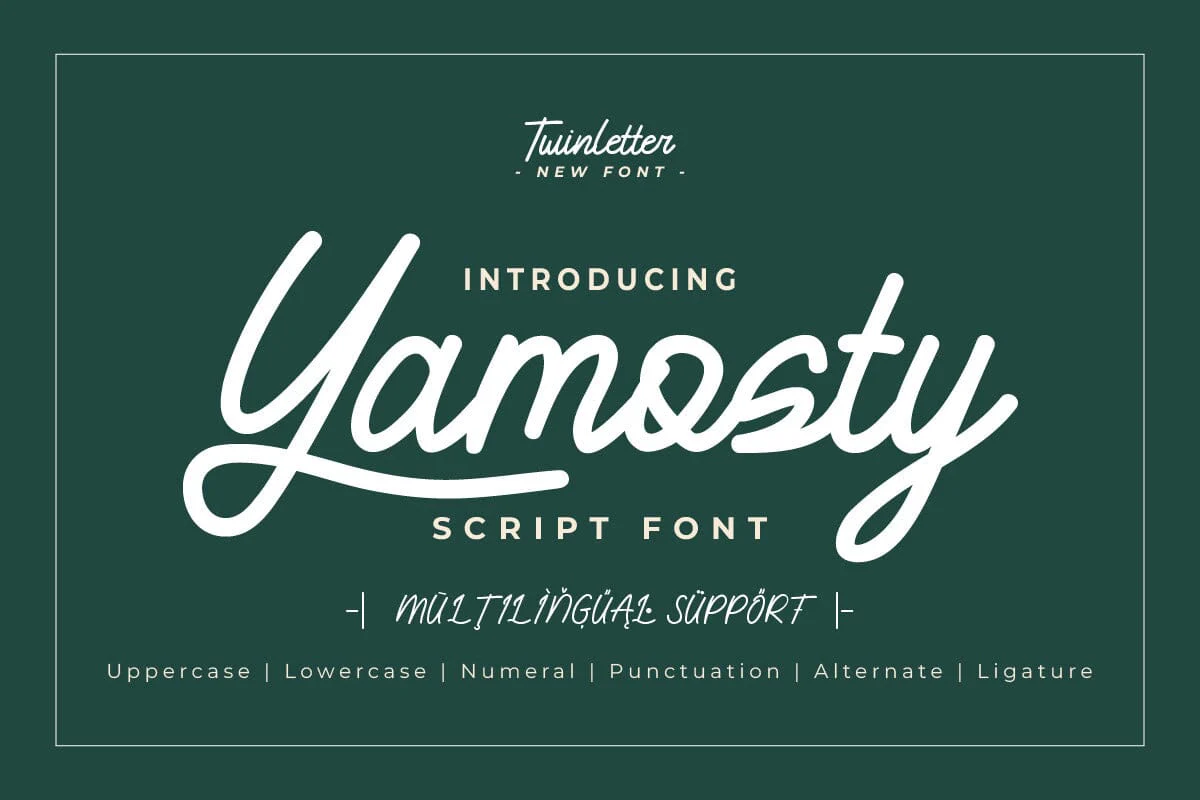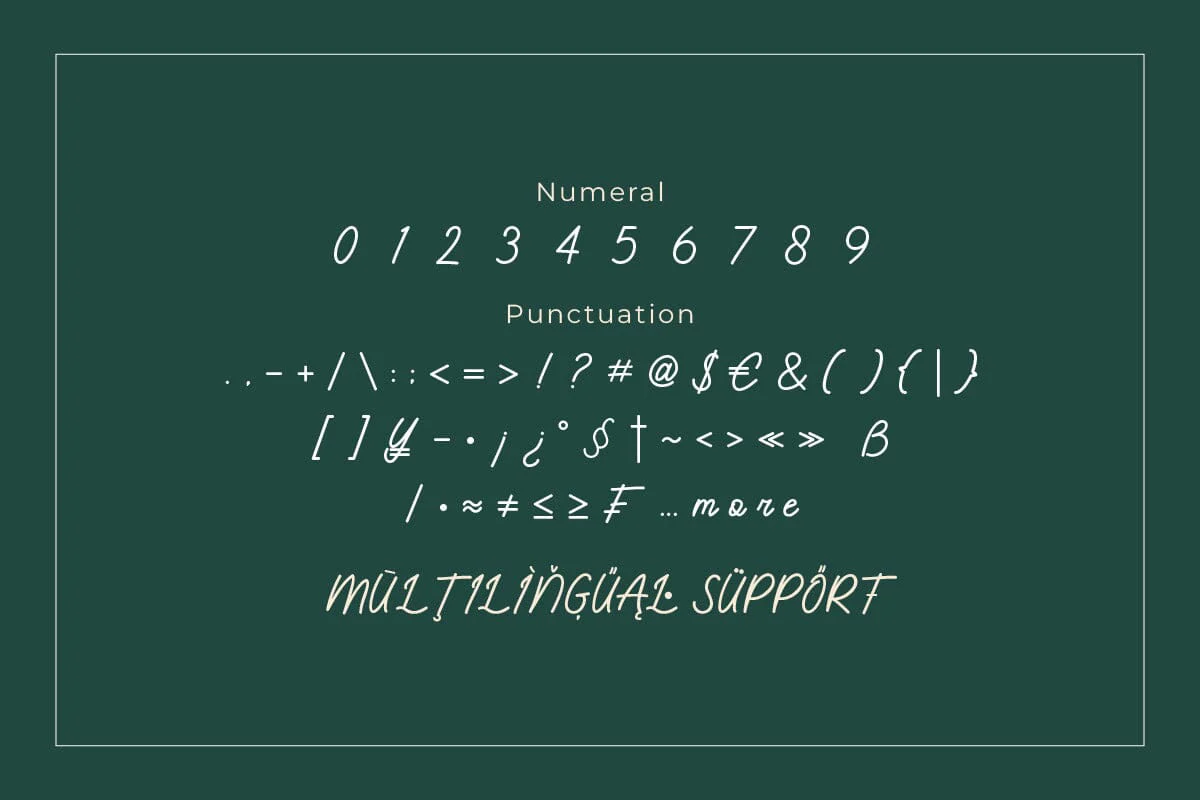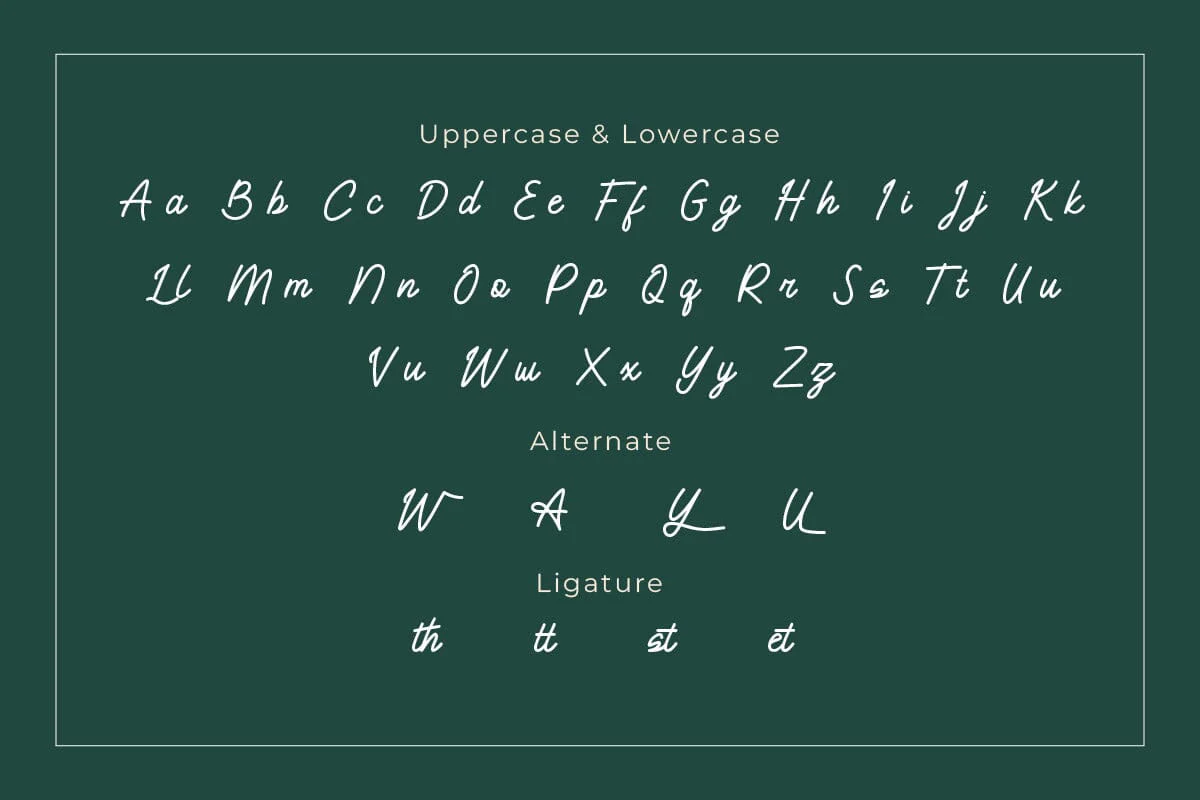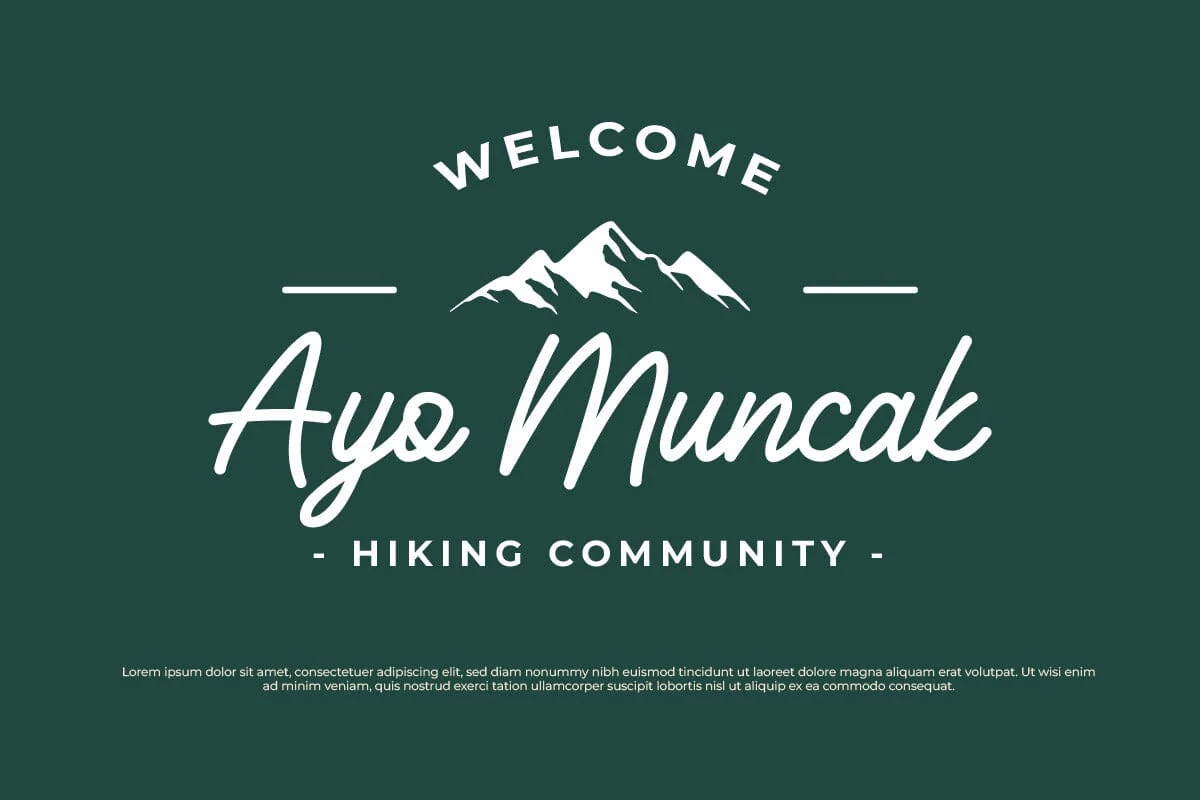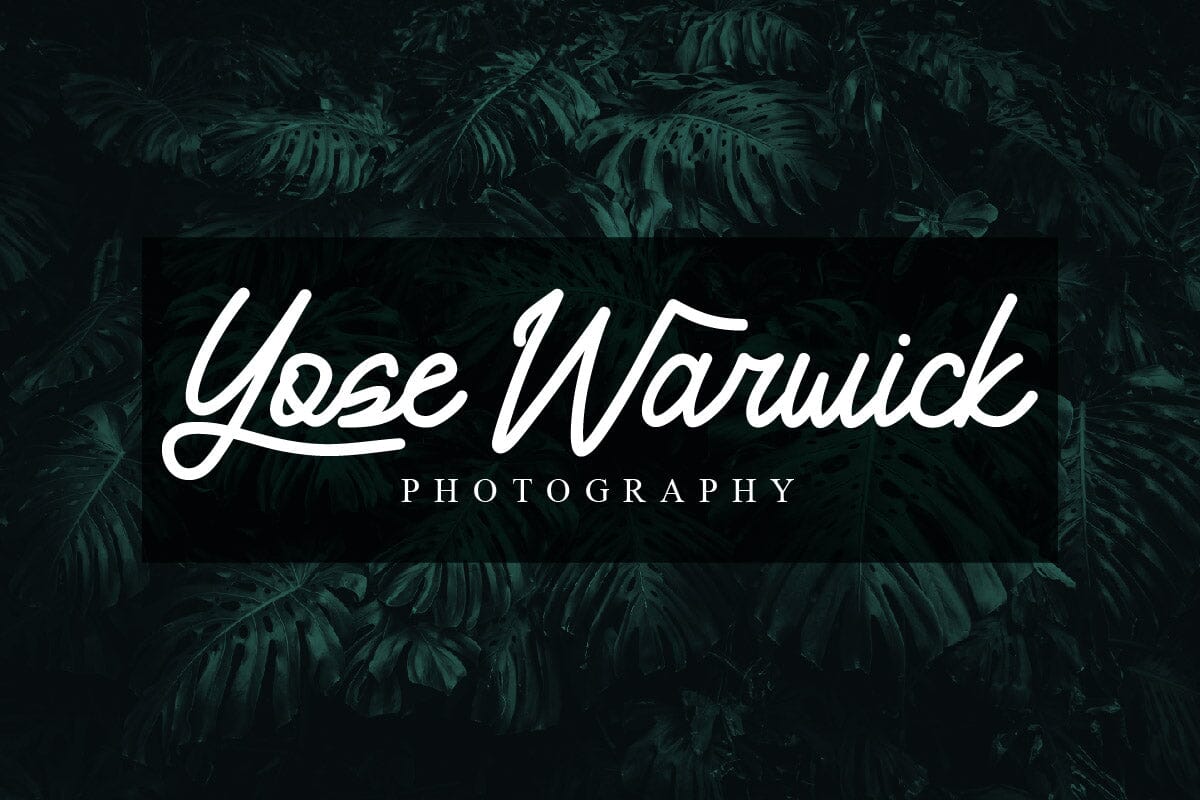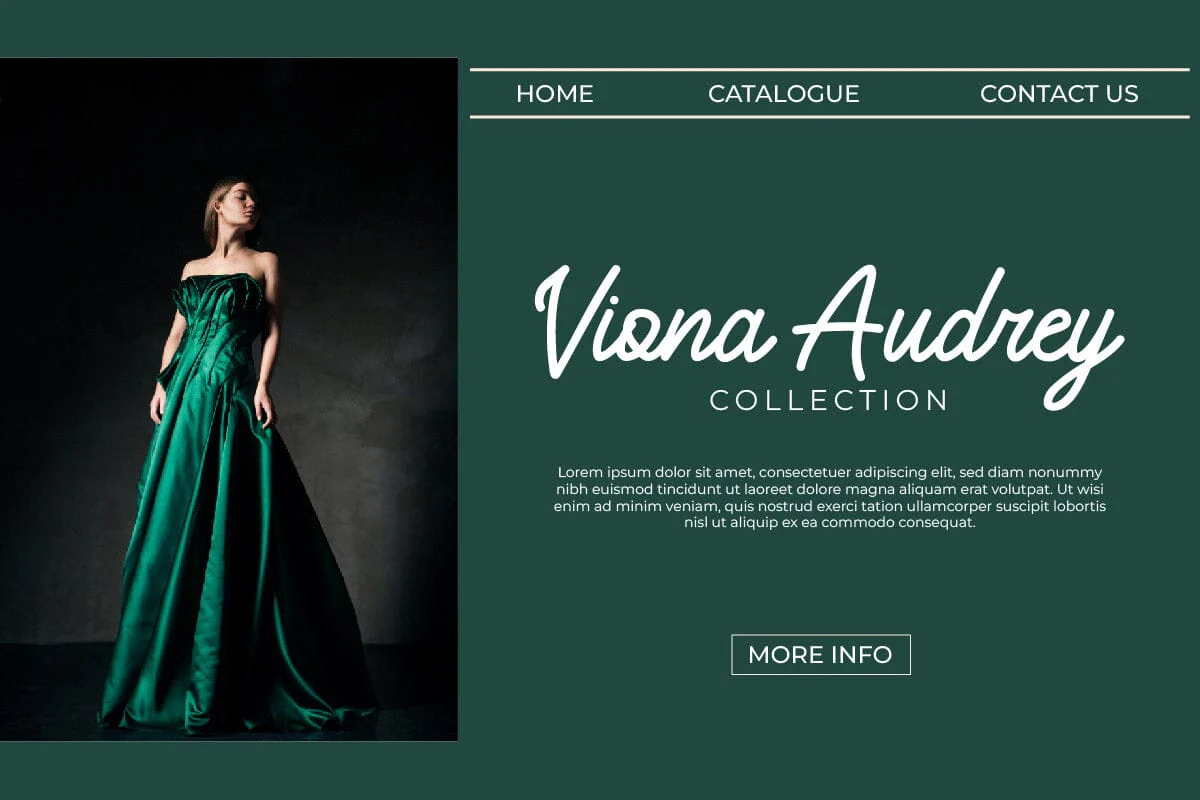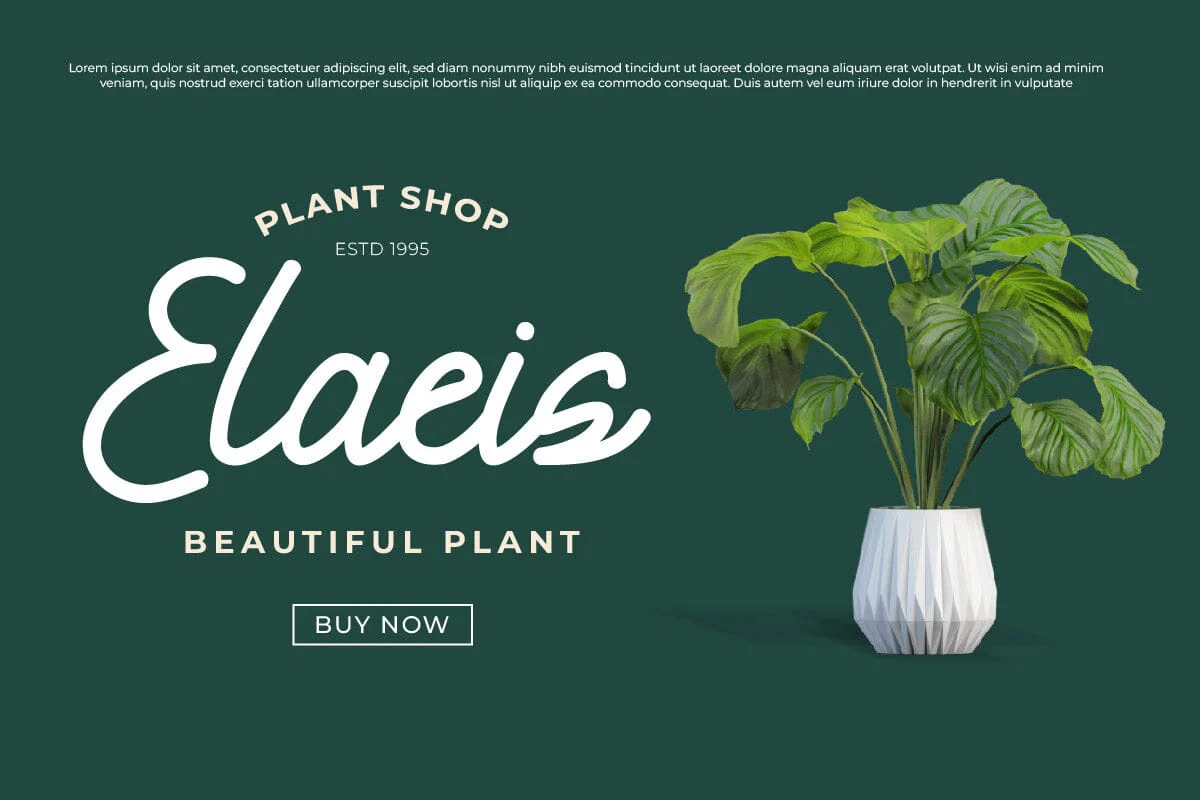
Yamosty - Script Monoline Font
Introducing Yamosty, a script monoline font that is the epitome of elegance and sophistication. With its clean, smooth lines, Yamosty is a versatile font that adds a touch of personal charm to any design. It’s perfect for creating stunning invitations, beautiful logos, and captivating headlines. The simplicity of its monoline design allows it to blend seamlessly with a variety of color schemes and design elements, making it a must-have for any designer’s toolkit.